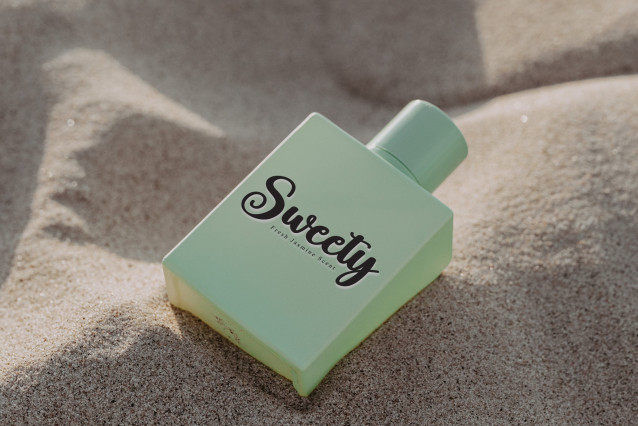
Kinder Someone Handwritten Font
Kinder Someone Handwritten Font – special creative products for you, our products will give you an extraordinary experience. the latest style letters are perfect for wall displays, wedding invitations, social media post logos,
advertisements, product packaging, product designs, labels, photography, watermarks, invitations, stationery, and any project that requires taste handwriting.